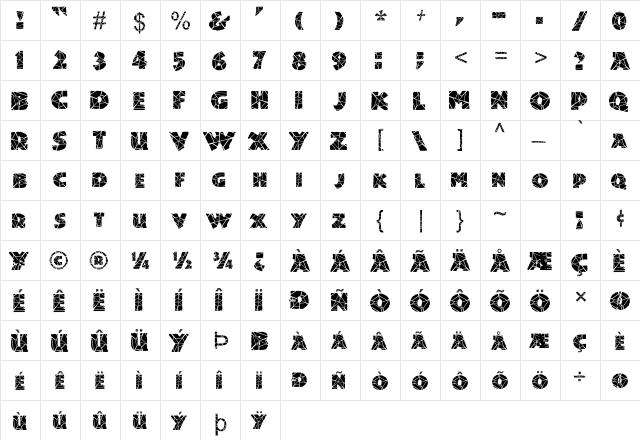
Dinosuaria-Cracked Normal
Design Context for Dinosuaria-Cracked Typeface
Dinosuaria-Cracked is a composed and adaptable typeface that performs quietly and consistently across a wide range of design contexts.